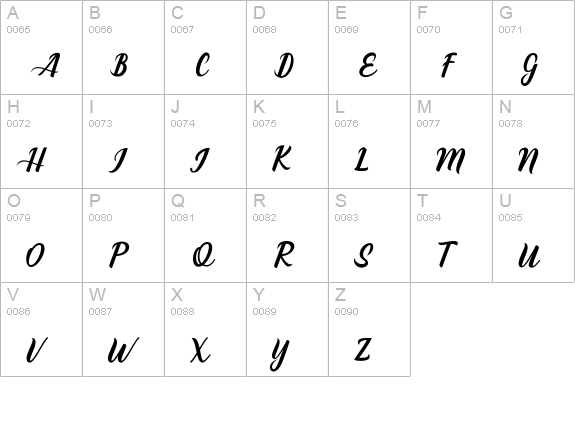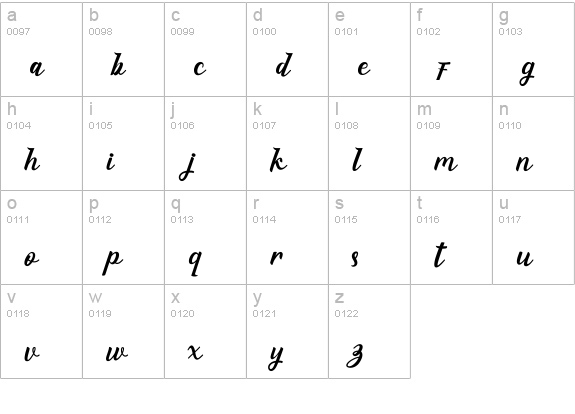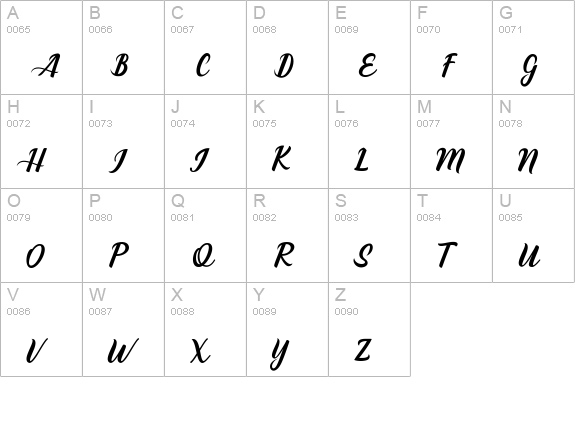
EAGLESE FONT Font Details
EAGLESE FONT is a demo font in the Script > Calligraphy category, designed by Creative LAB. It has been downloaded 140 times and is available for Windows, Mac and Linux.
EAGLESE FONT is a modern and stylish font that exudes elegance and sophistication. With its sleek lines and sharp edges, this font is perfect for creating eye-catching designs that demand attention. Whether used for logos, headlines, or any other creative project, EAGLESE FONT is sure to make a statement.